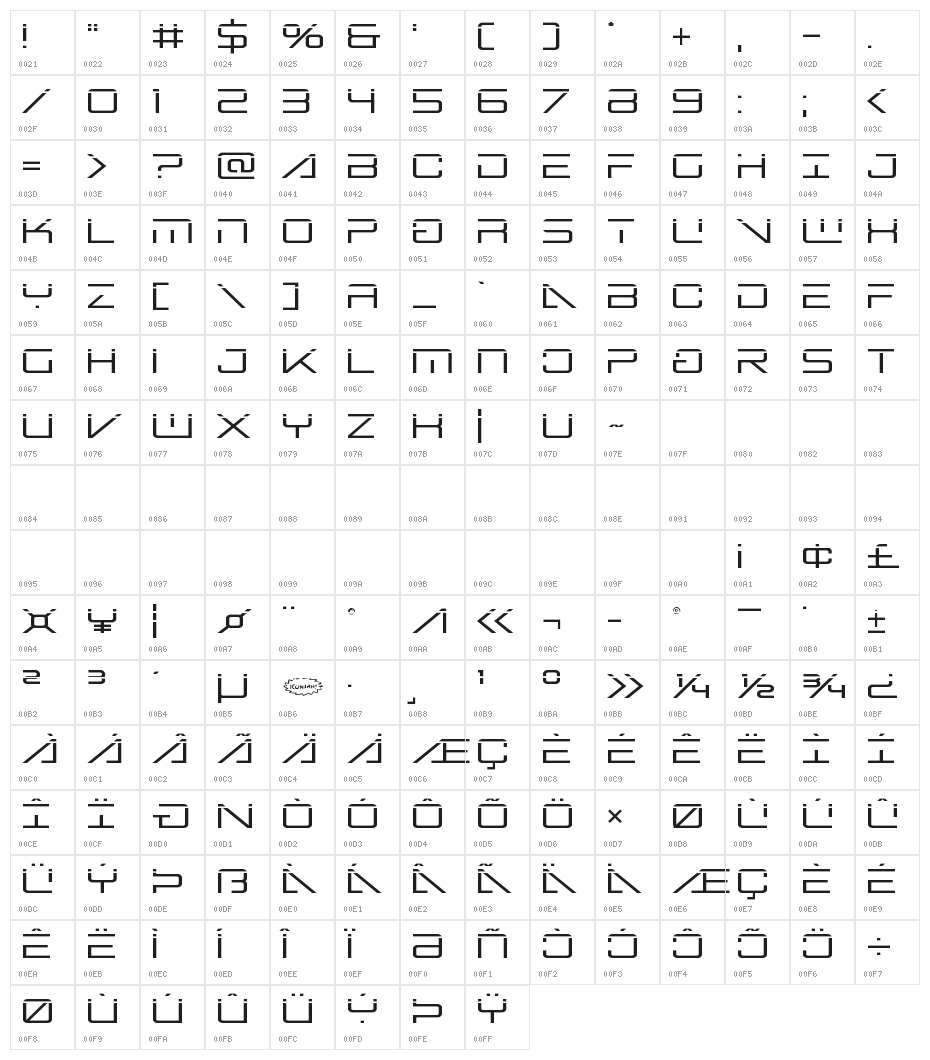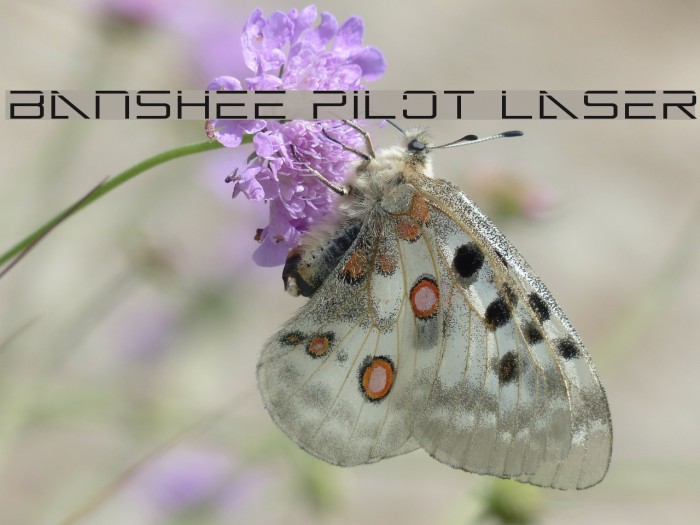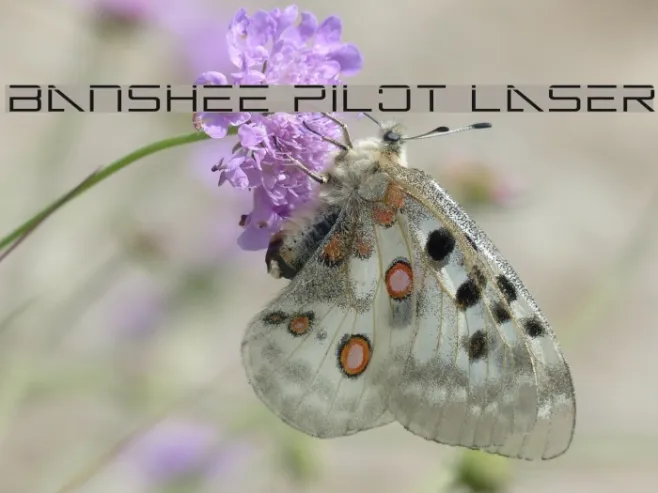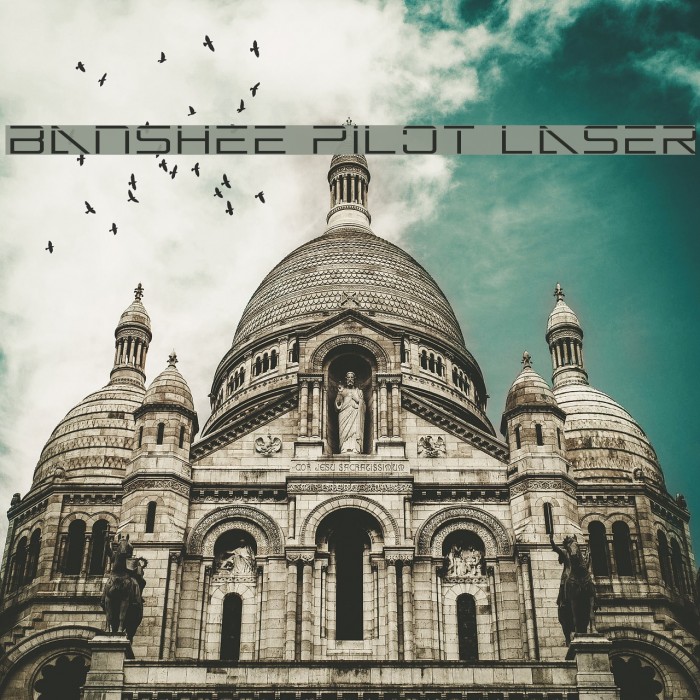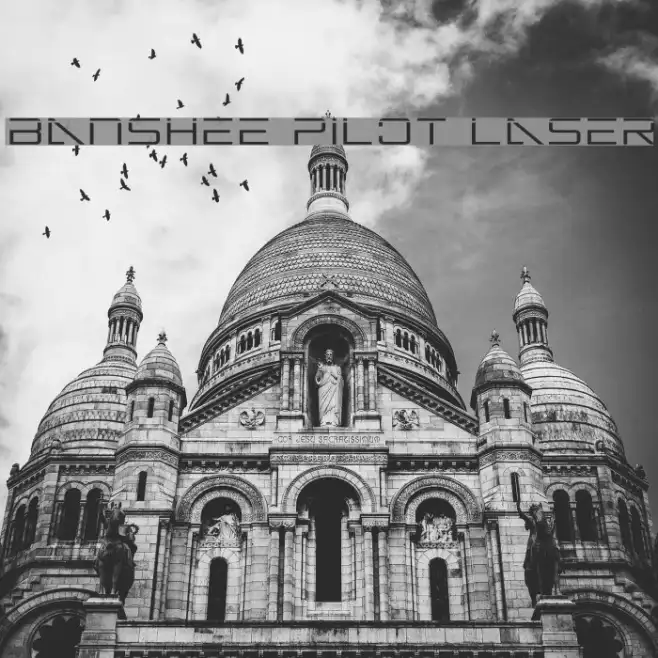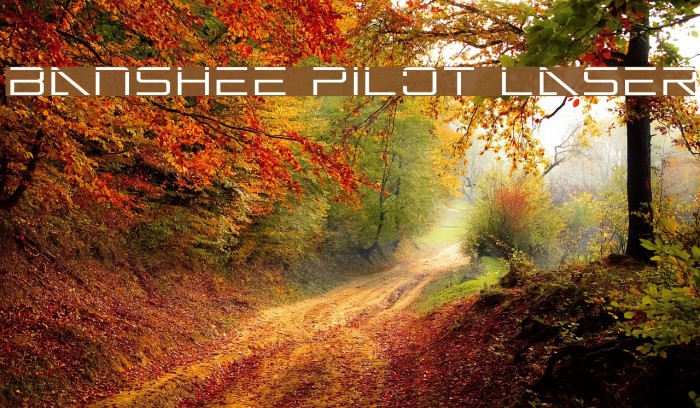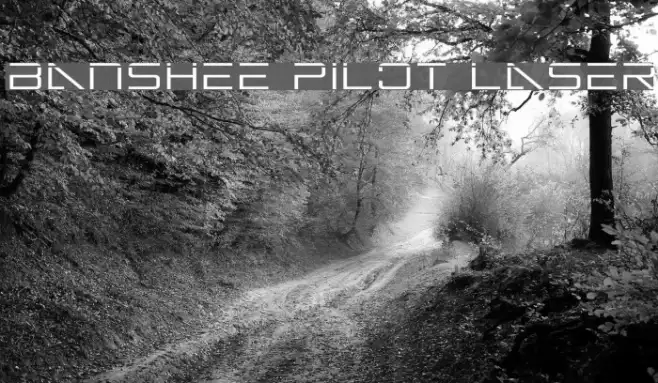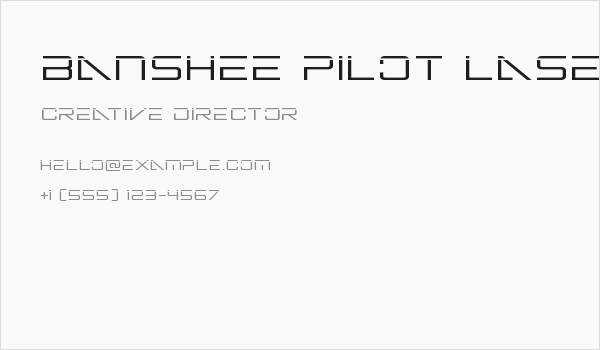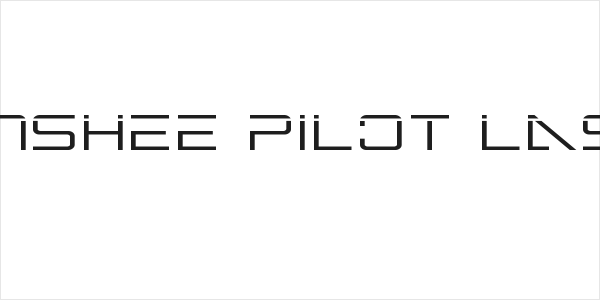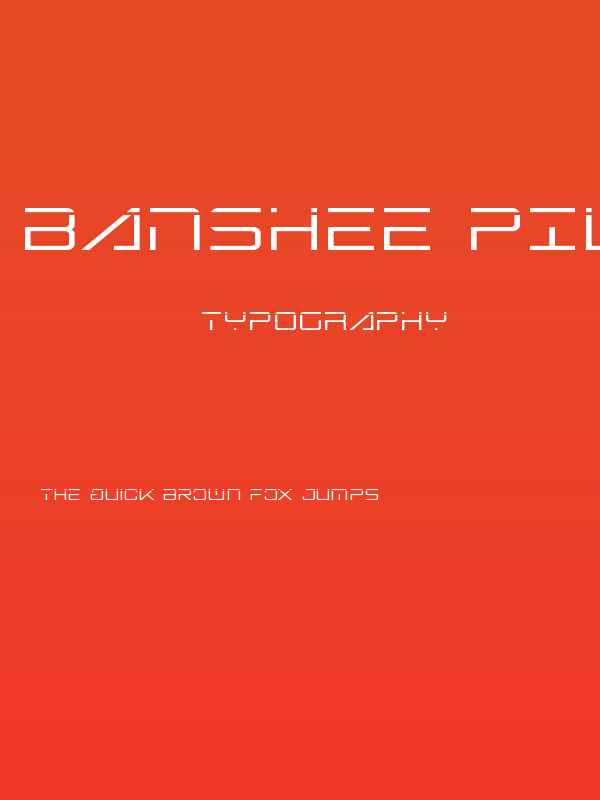
Banshee Pilot Laser Font
Banshee Pilot Laser Description
This futuristic and geometric font features a sleek, angular design with sharp edges and a technical aesthetic. The characters are constructed with a consistent line weight, giving it a uniform appearance. The uppercase letters are distinct with a modern, sci-fi influence, while the lowercase letters maintain the same angular style. The numerals are clear and legible, matching the overall design theme. Special characters are included, maintaining the font's cohesive look. This font is ideal for projects that require a contemporary and cutting-edge feel.
| Proposed Projects | Ideal for sci-fi movie posters, tech company branding, video game interfaces, and modern digital artwork. |